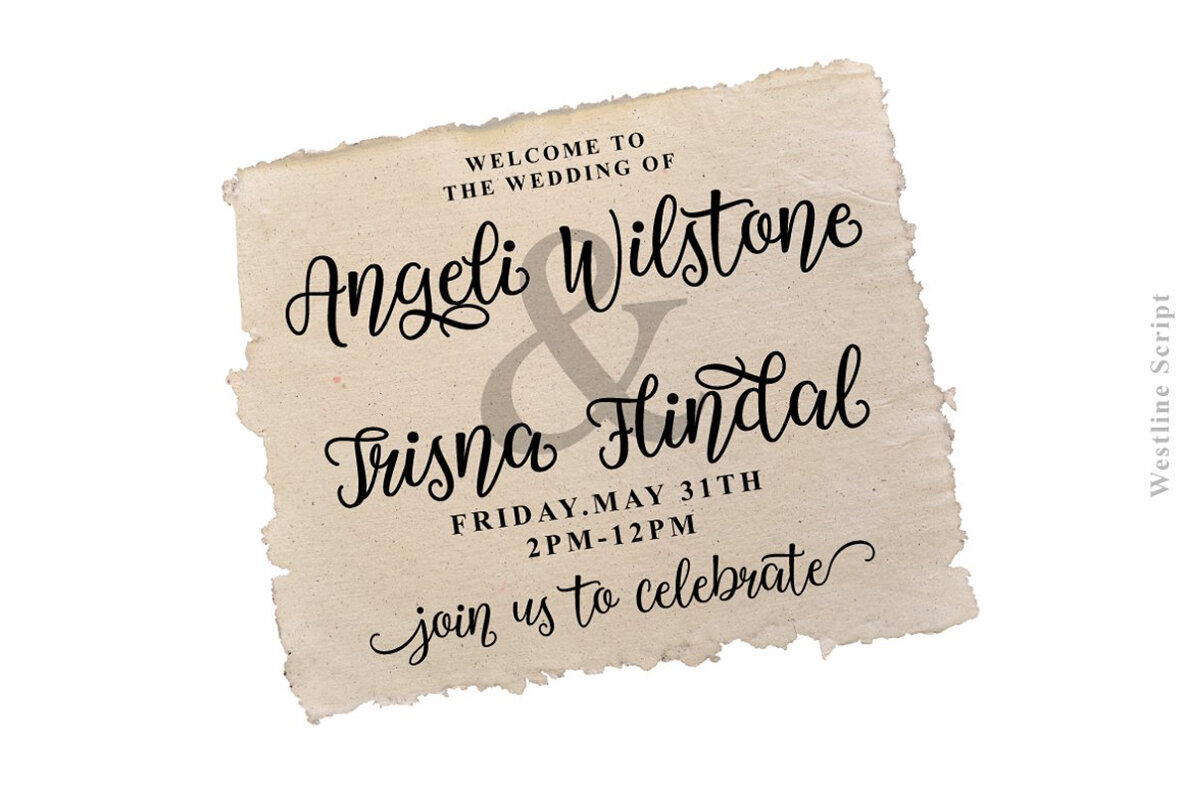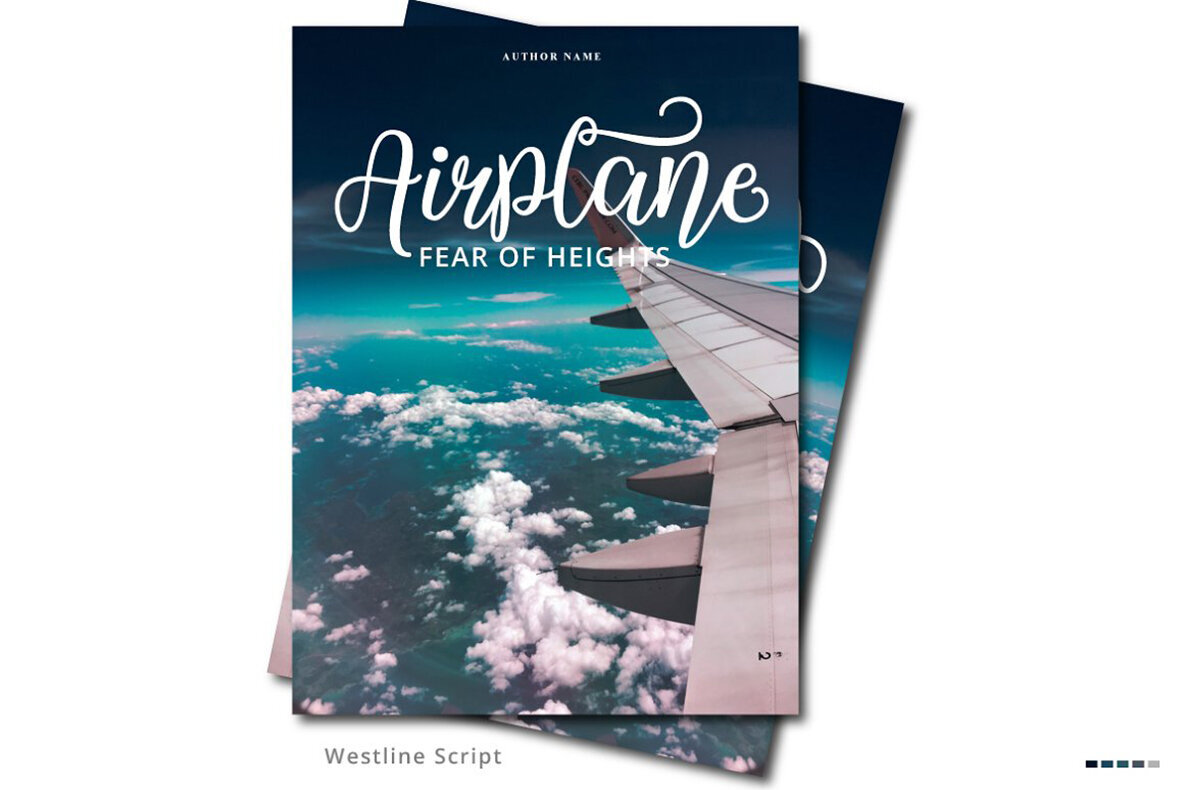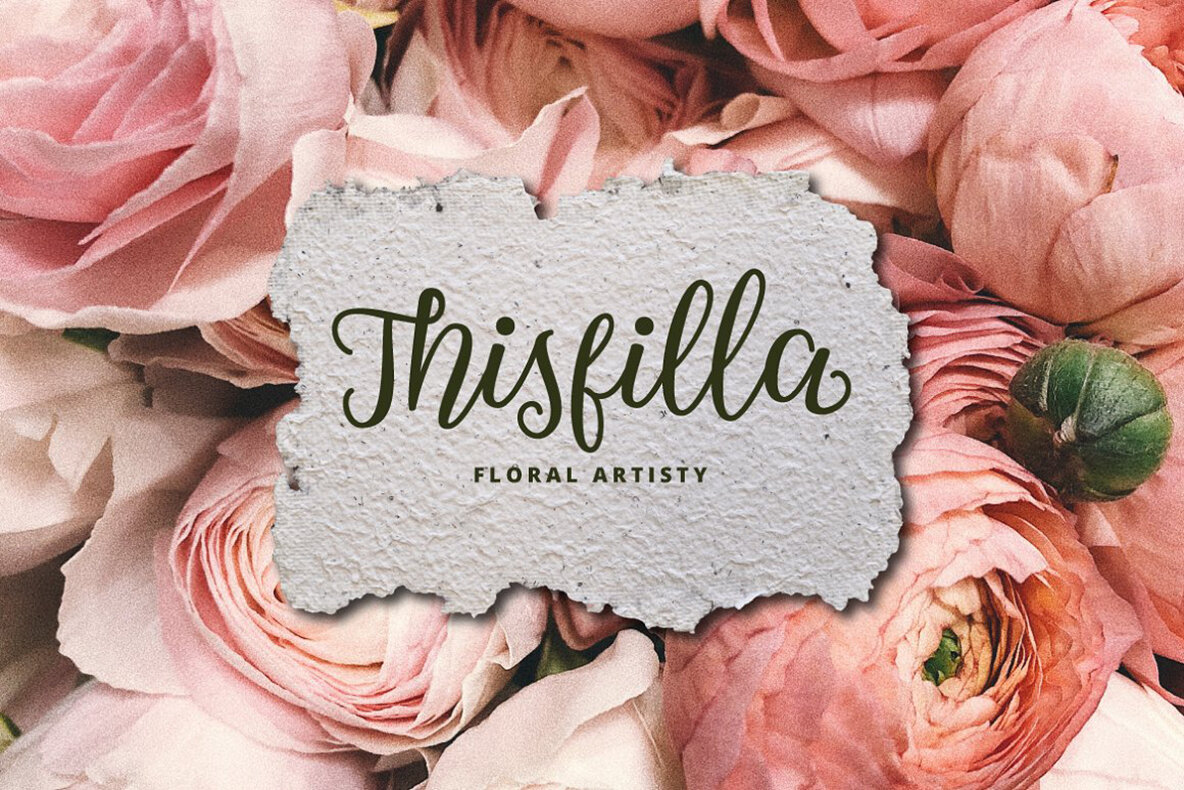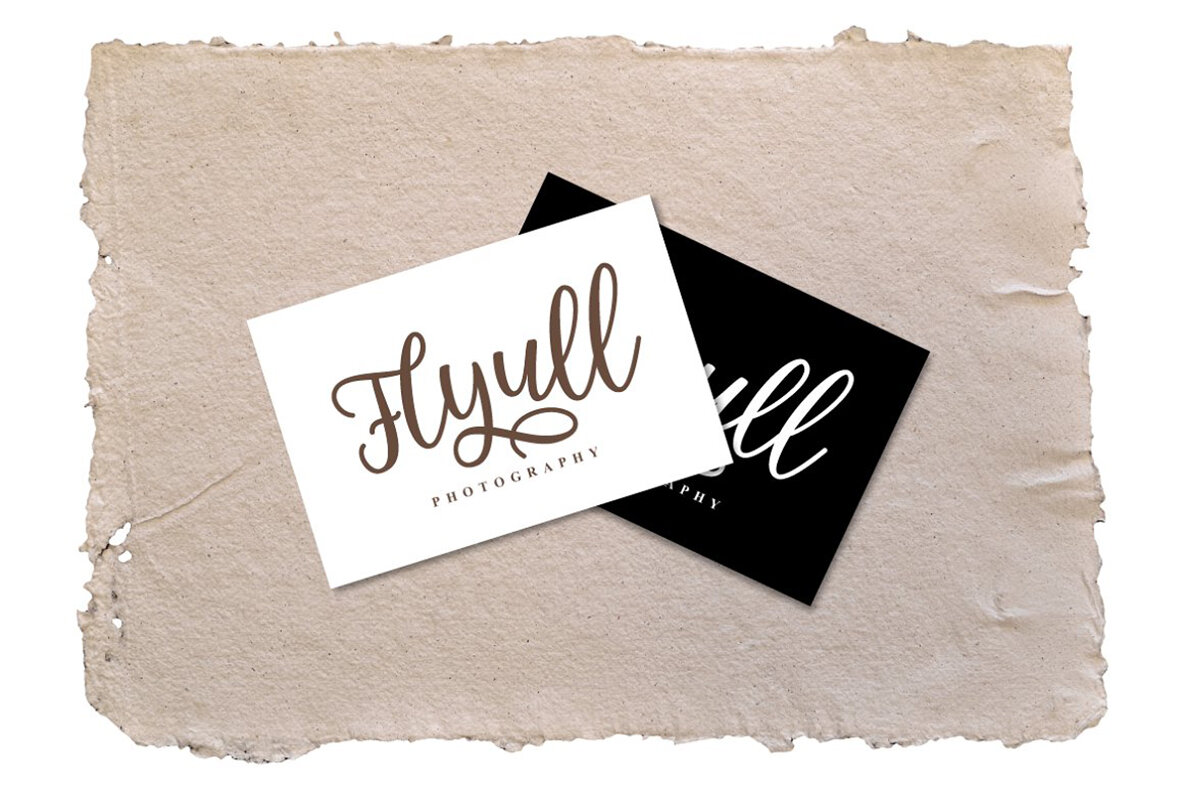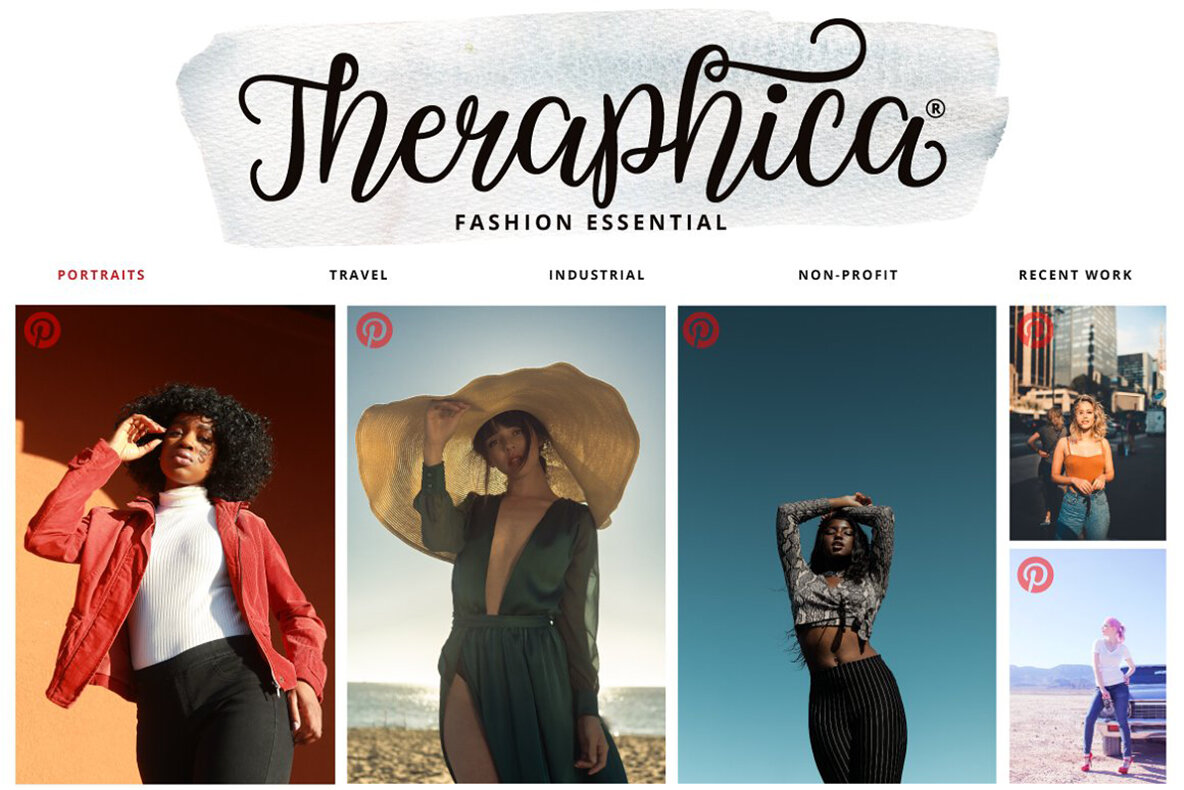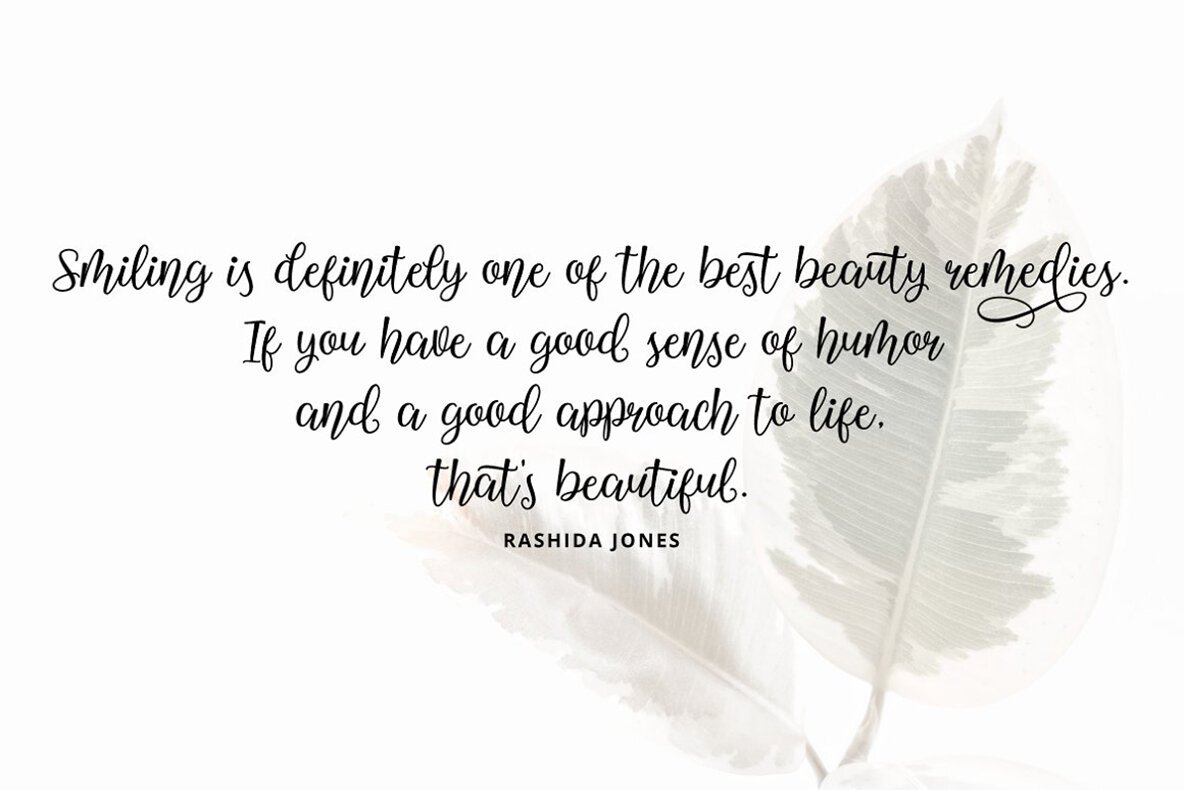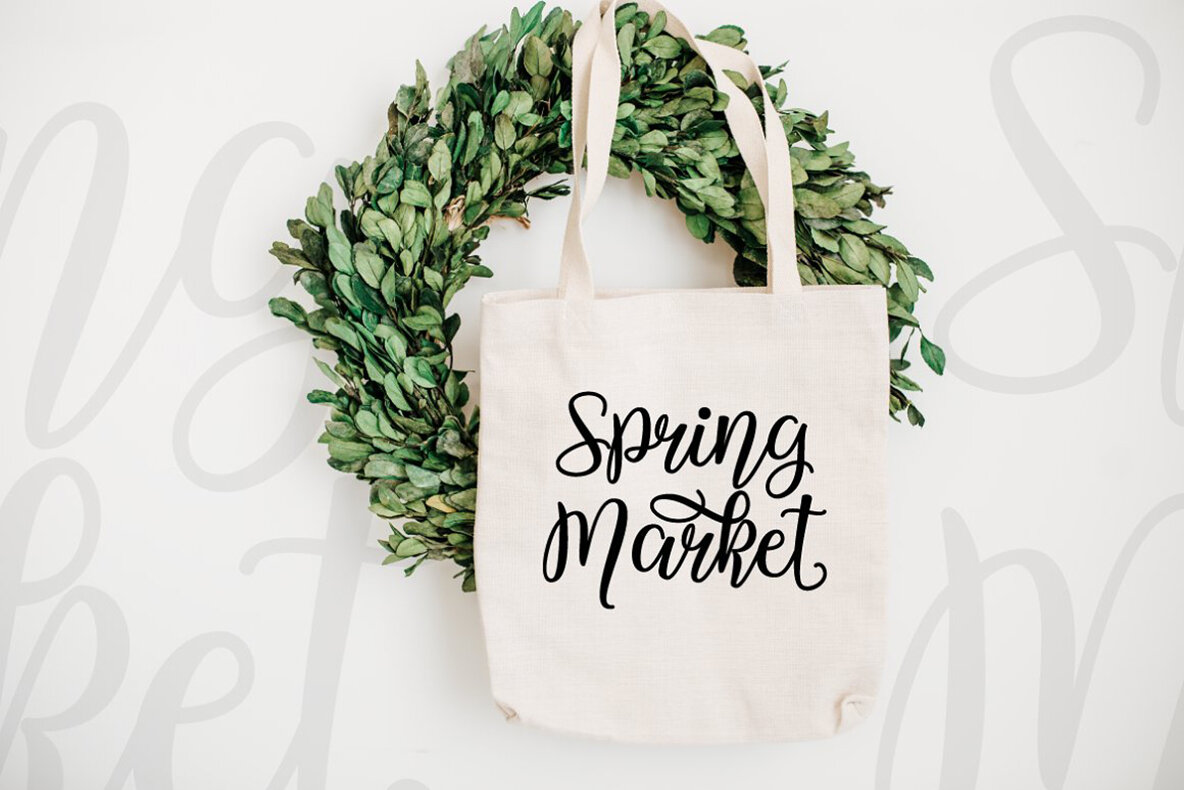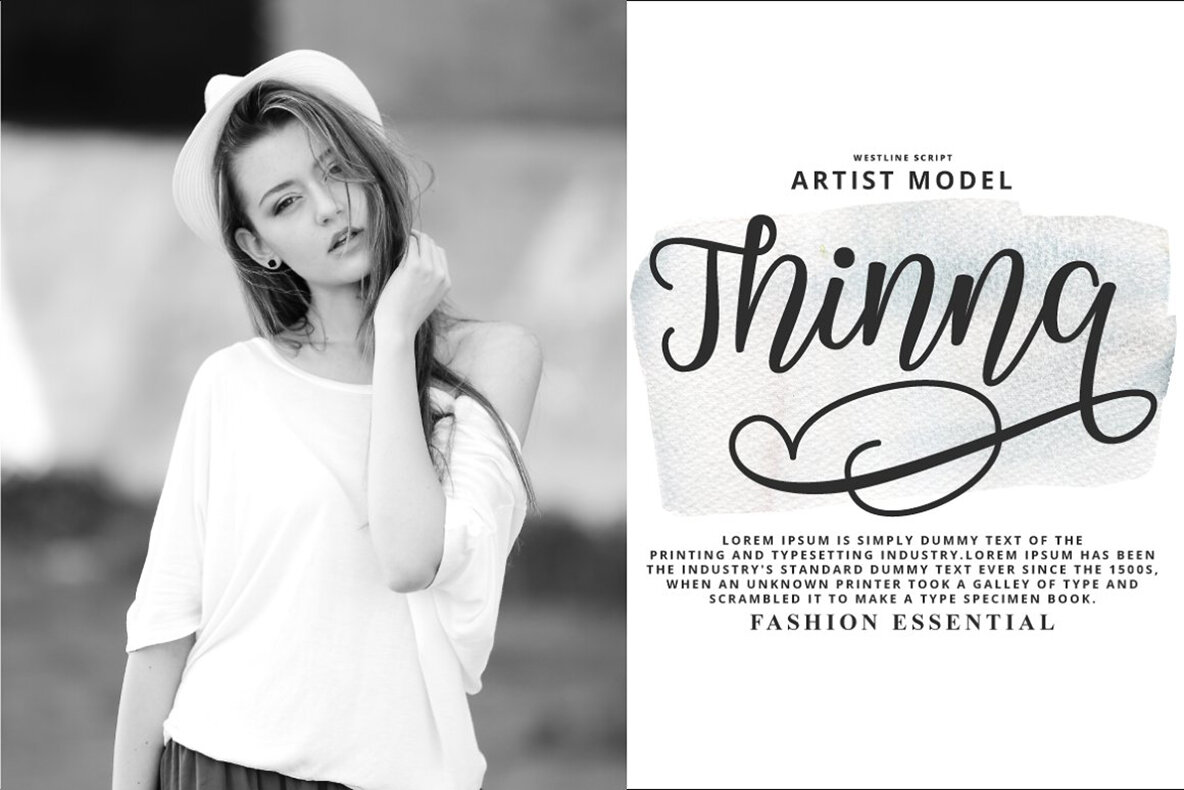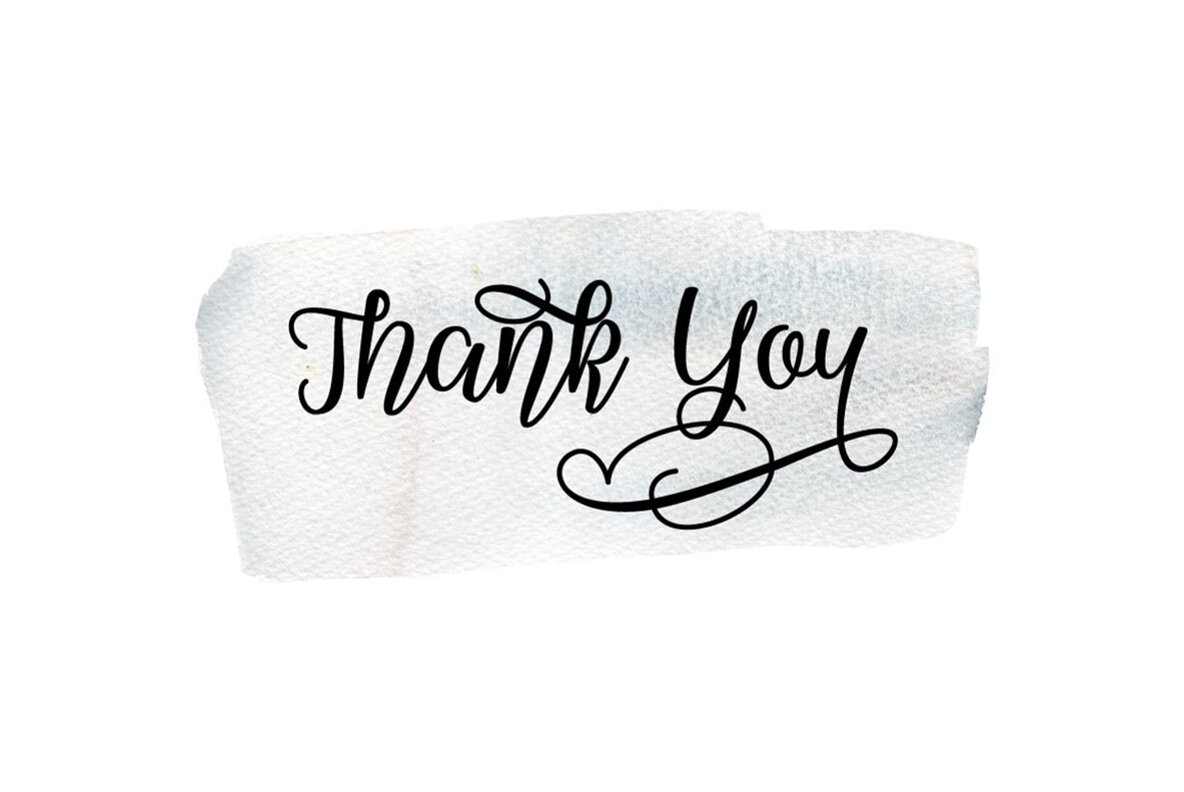
Westline Script Font
Westline Script
This playful and whimsical script font features curly, handwritten lettering that exudes a fun and casual vibe. Its unique design makes it perfect for creative design projects such as invitations, greeting cards, children’s books, and DIY crafts. The font's informal, friendly appearance also makes it ideal for branding and promotional materials that aim to communicate warmth and approachability.